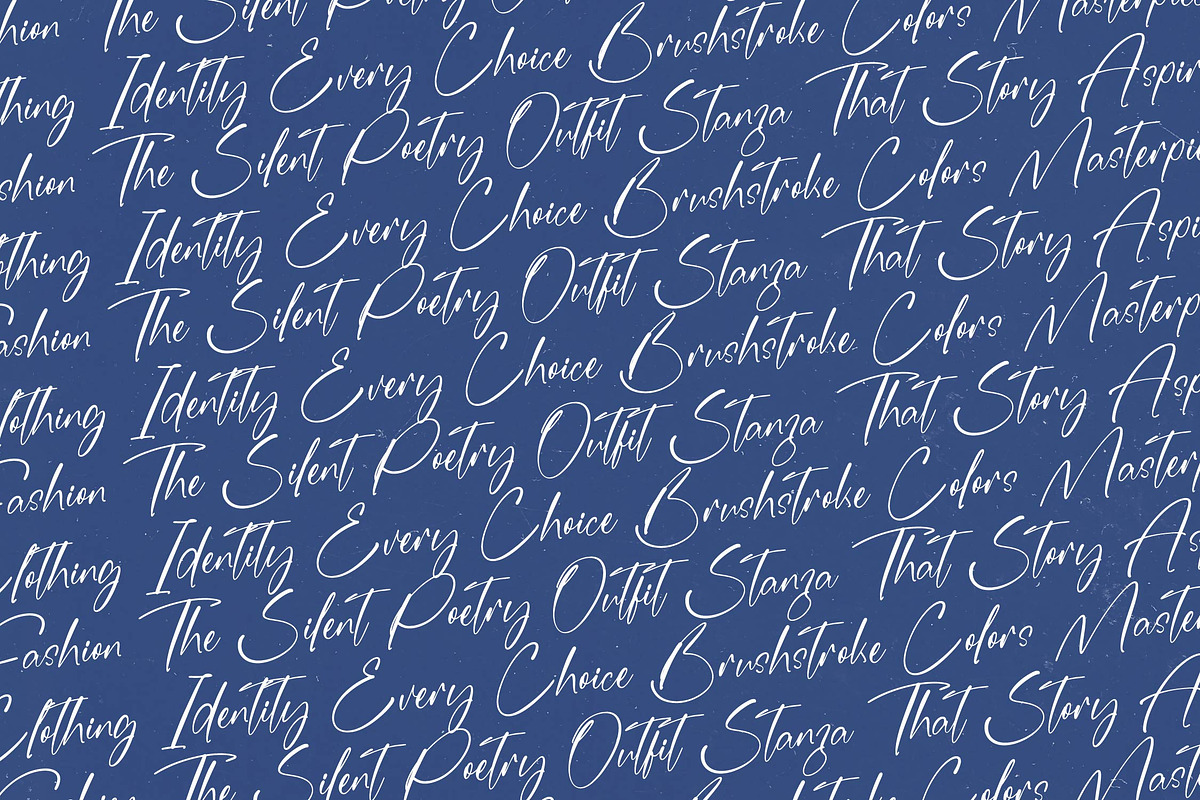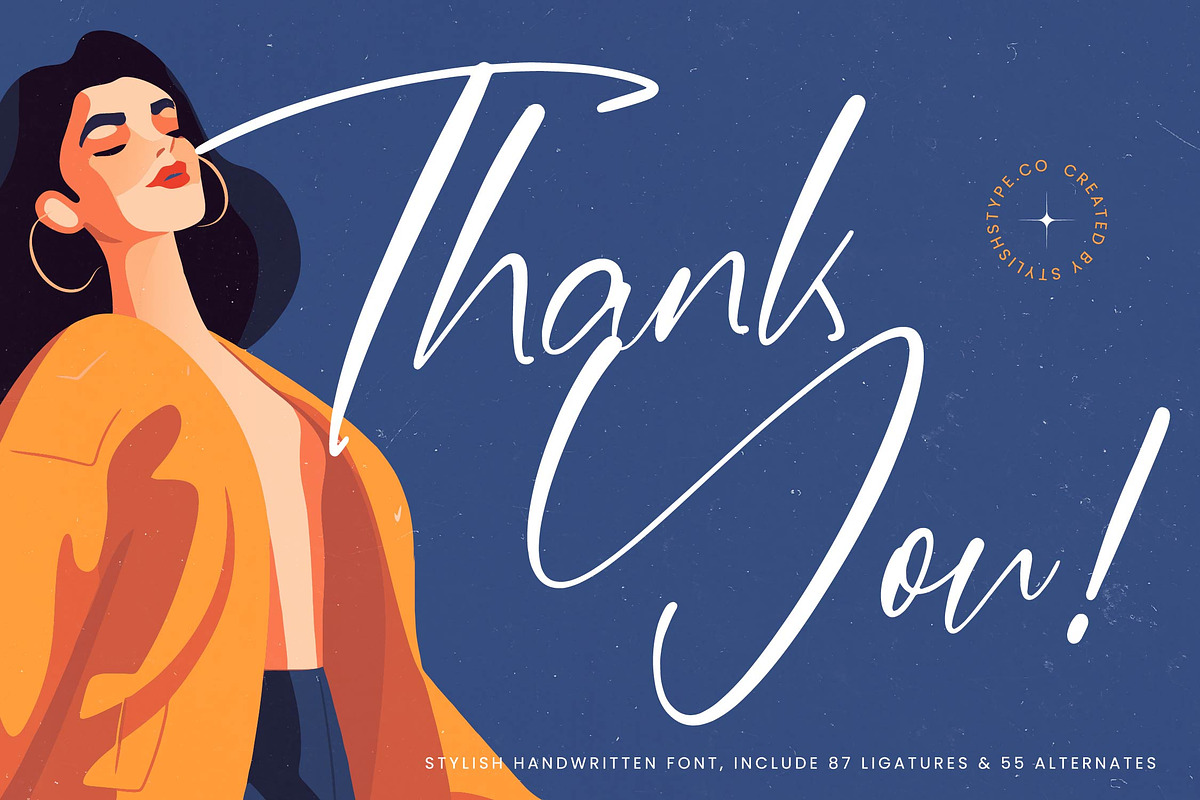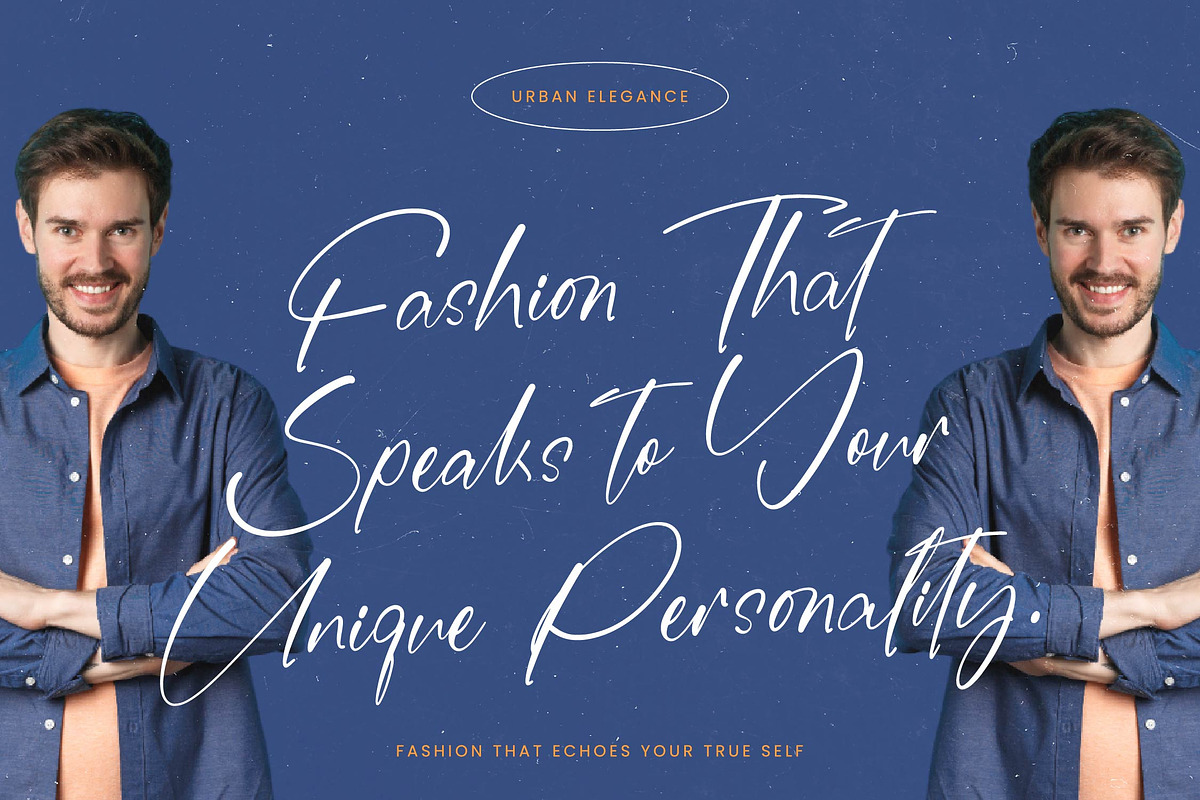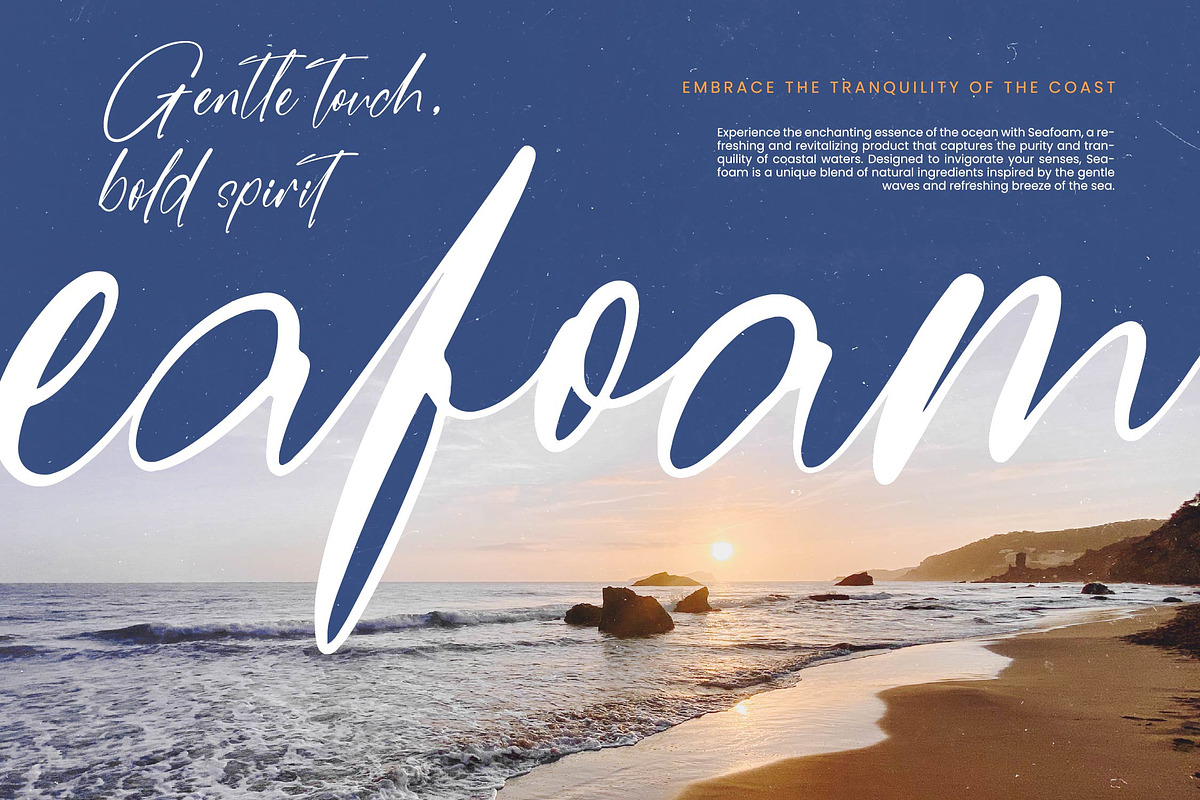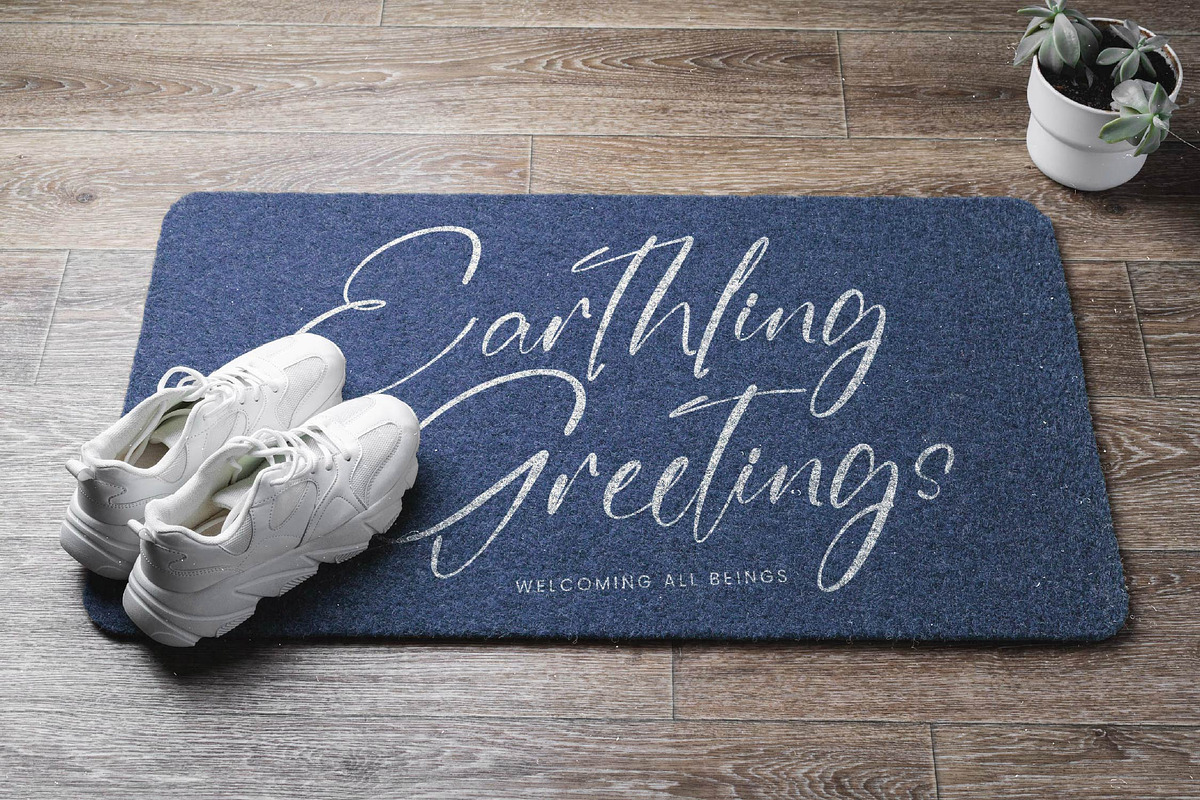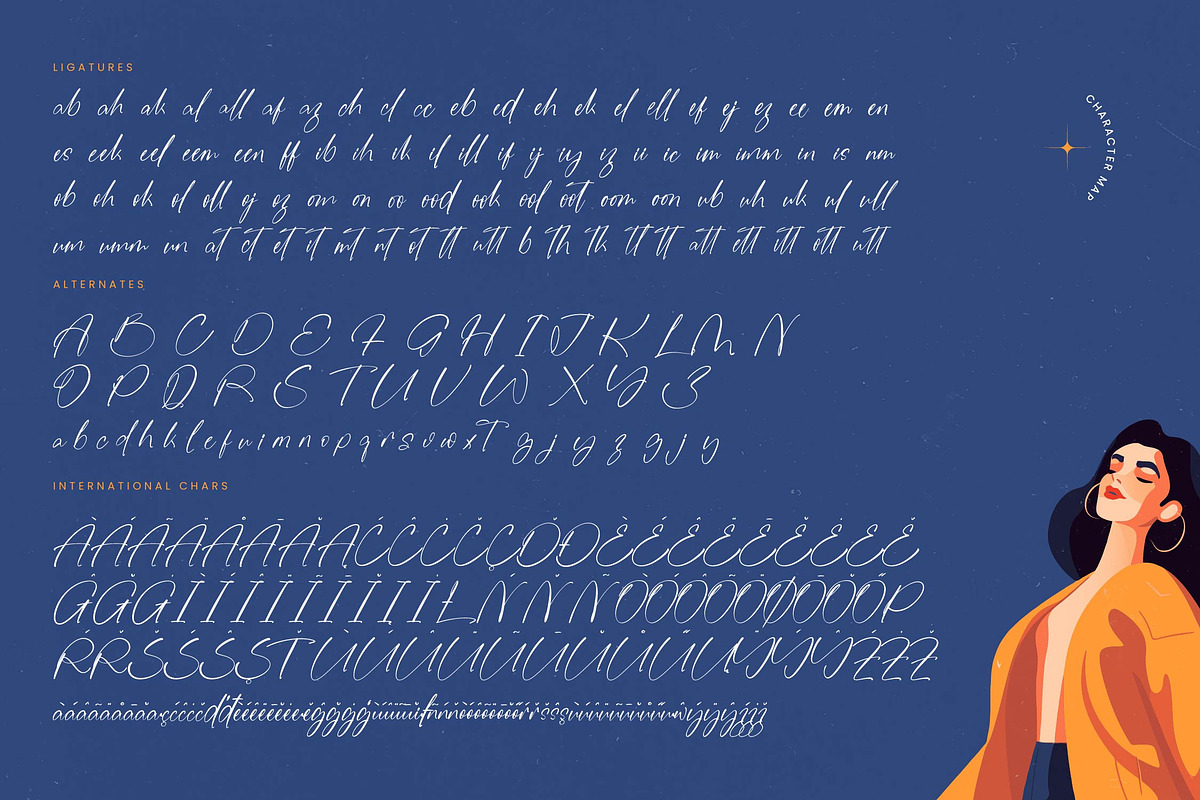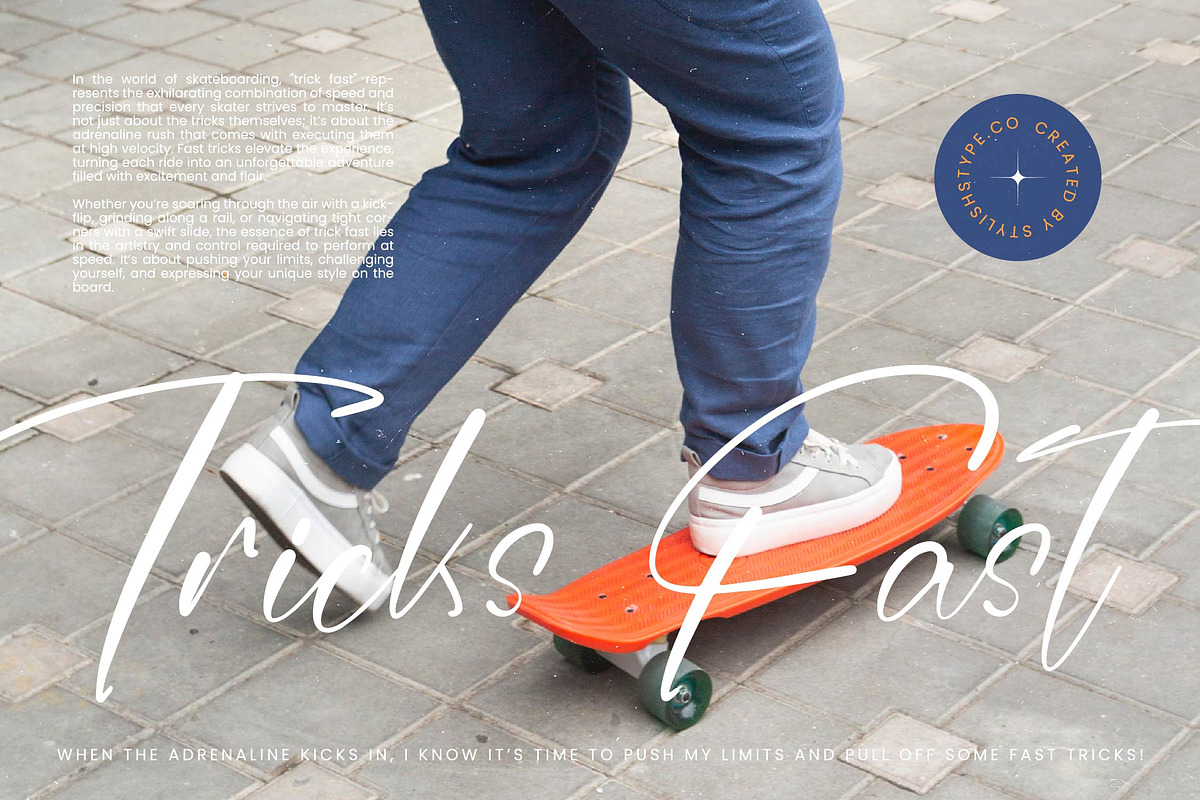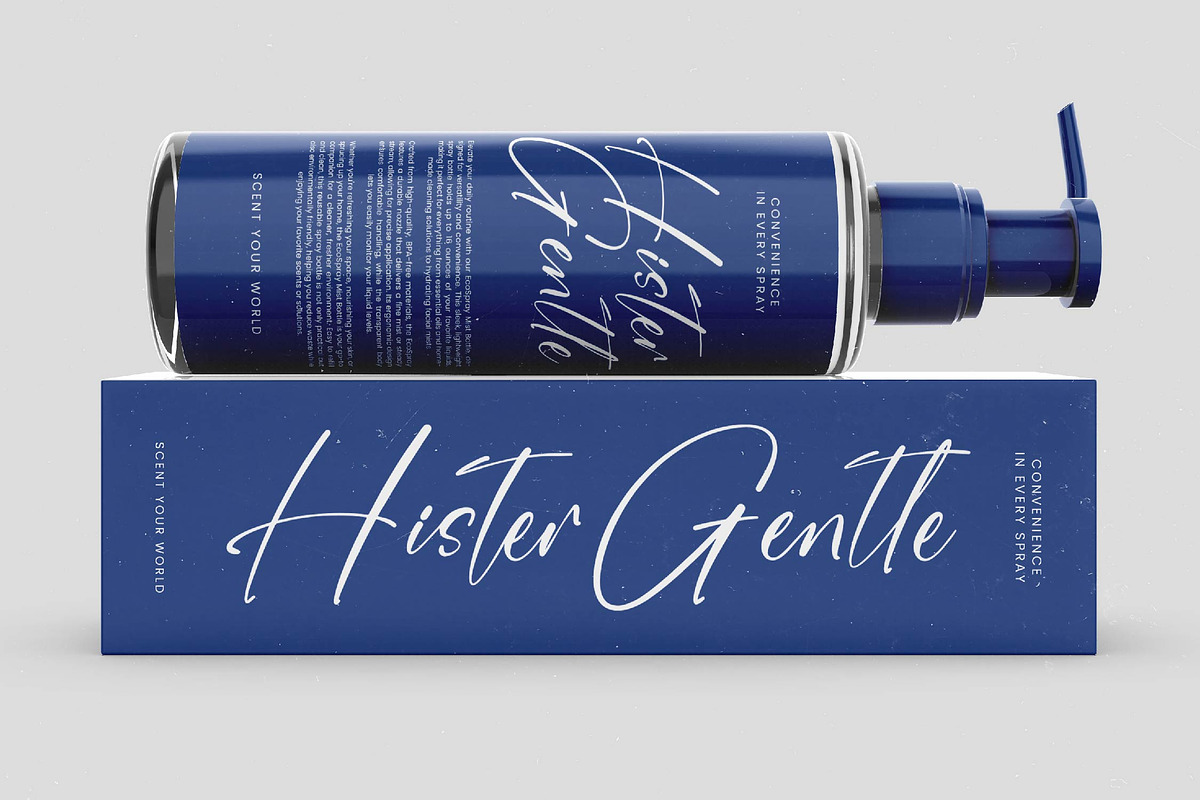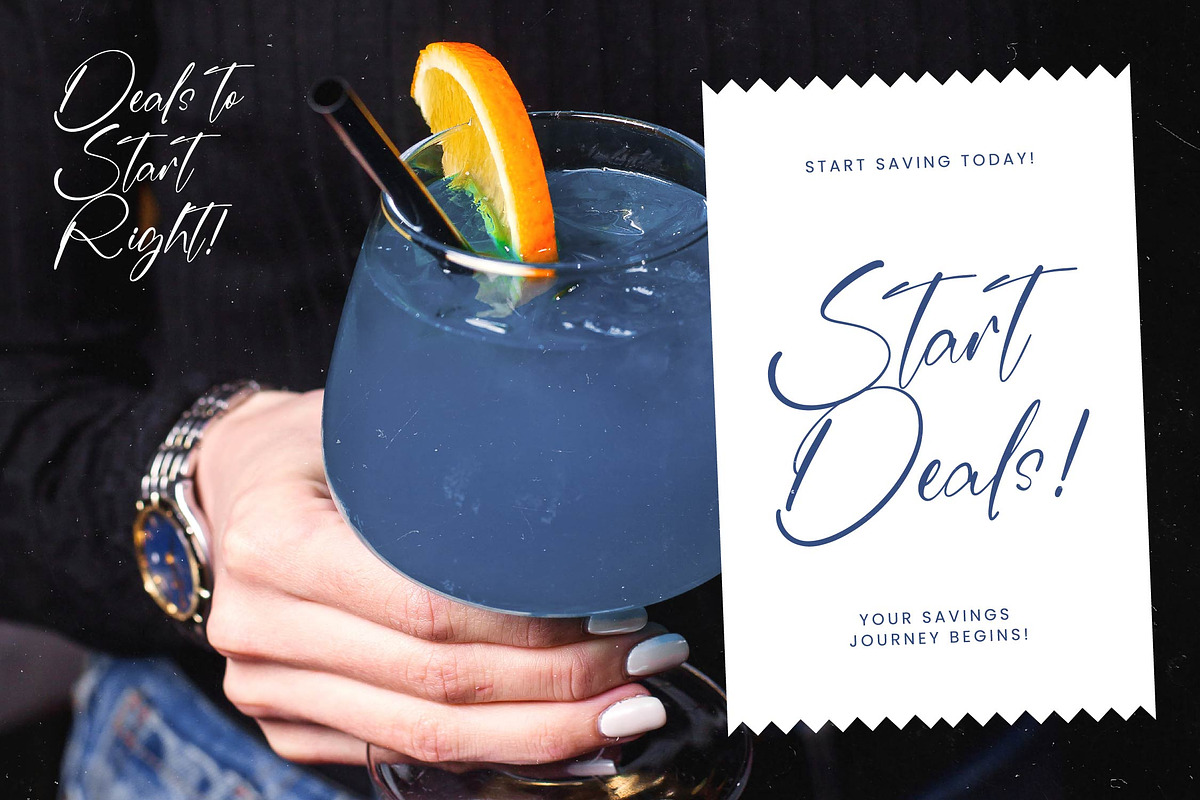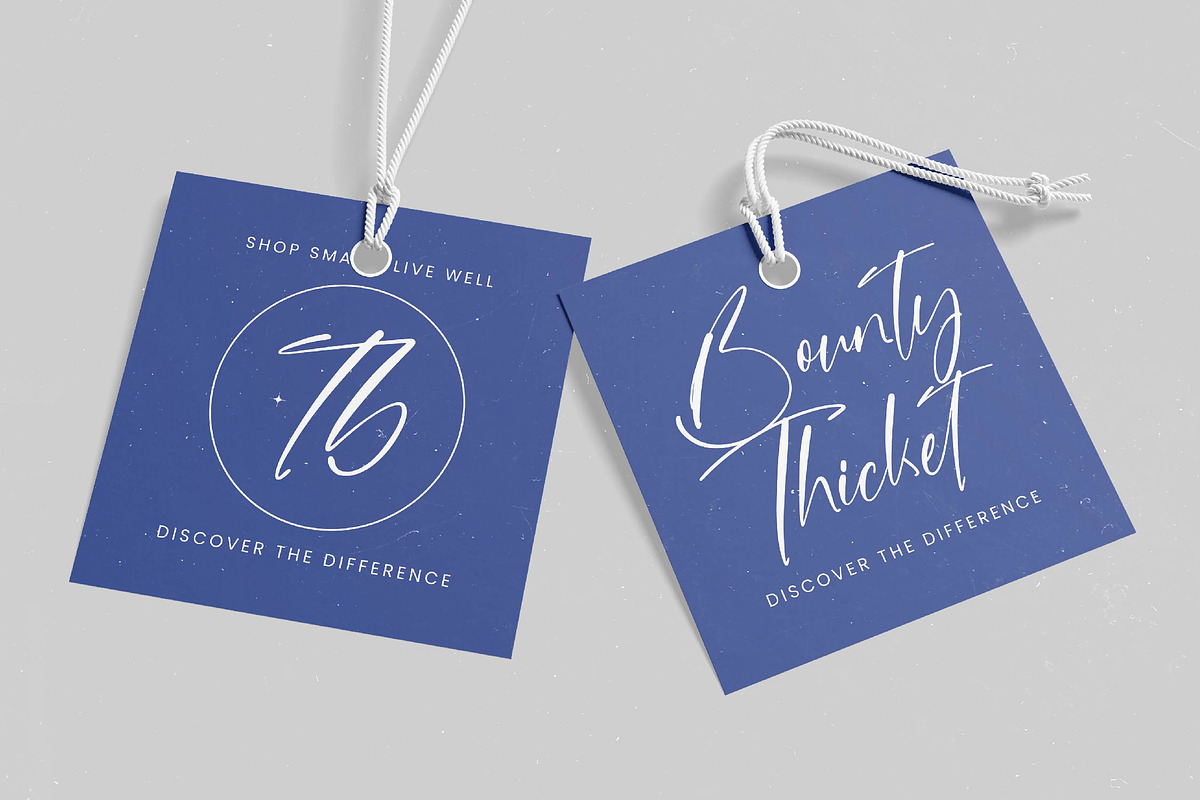
Giuletta Antonela Stylish Font
Giuletta Antonela - Stylish Handwritten Font , from Stylishtype.Co , Suitable for any projects such as: logos, branding projects, homeware designs, product packaging, mugs, quotes, posters, shopping bags, t-shirts, book covers, name card, invitation cards, greeting cards, label, photography, watermark, special events, and all your other luxury and beautiful projects that need a Luxury Script taste.
- 87 Ligature 55 Alternates & Swashes